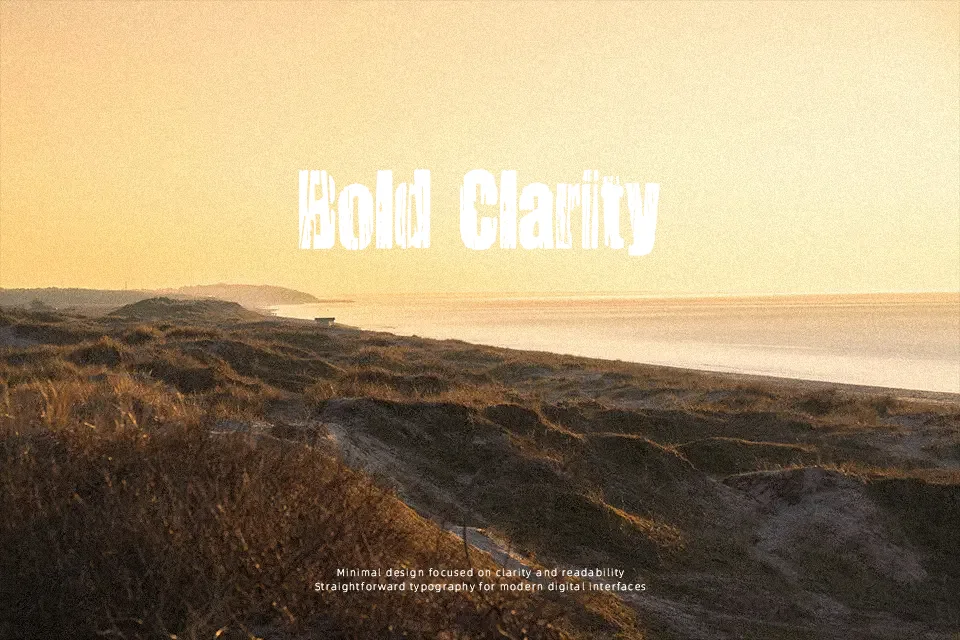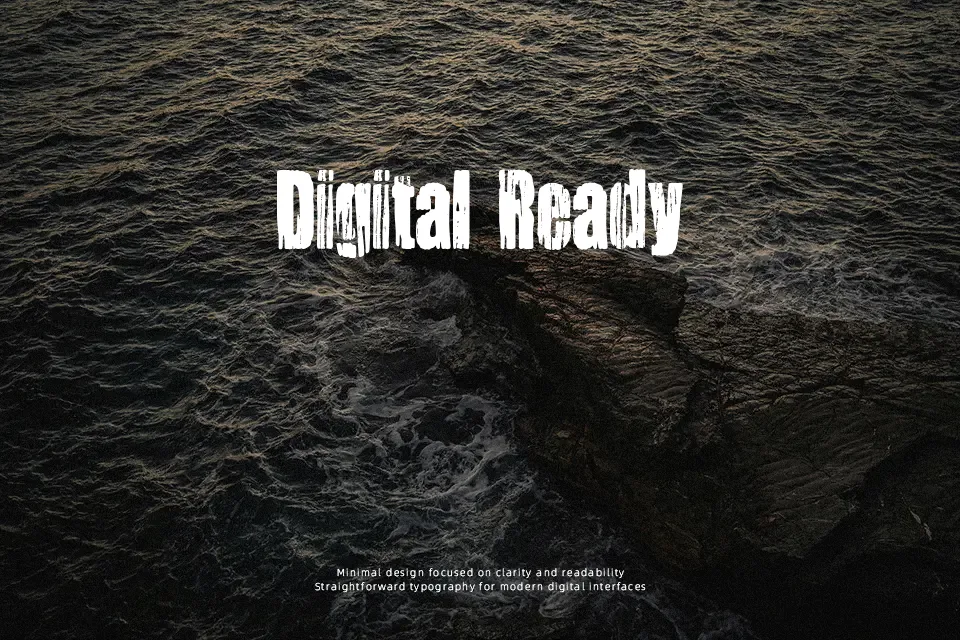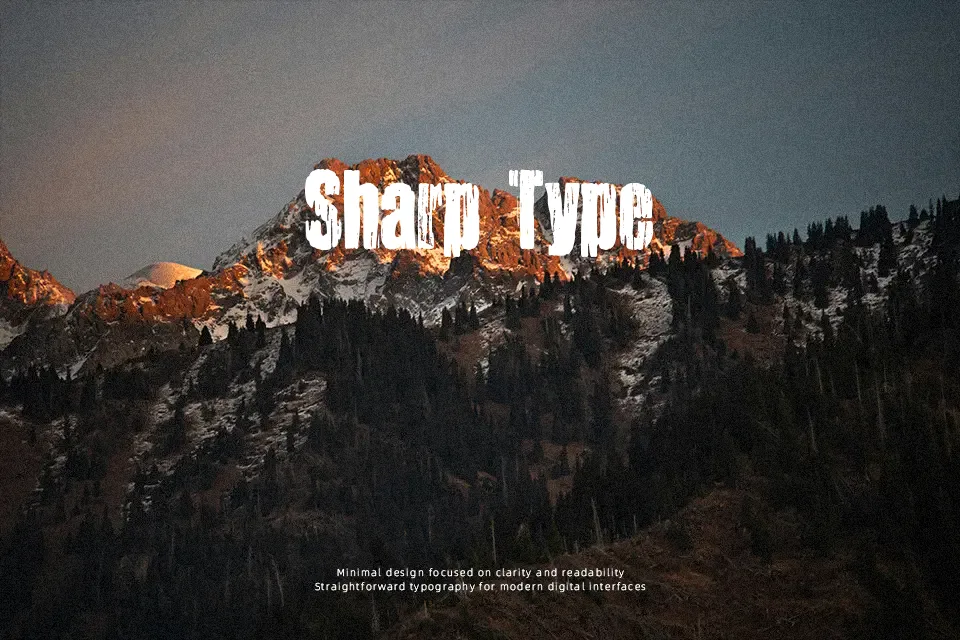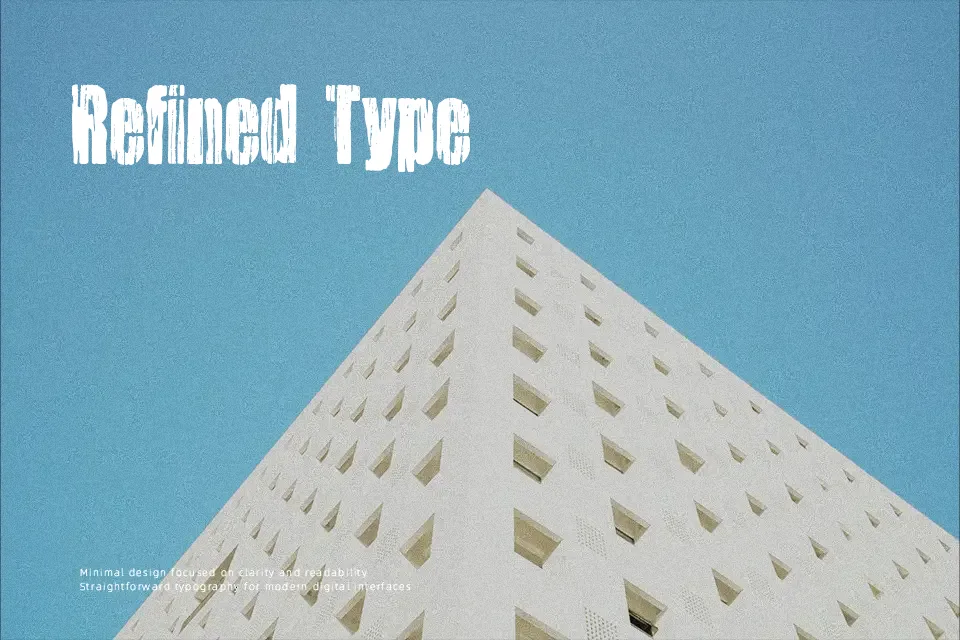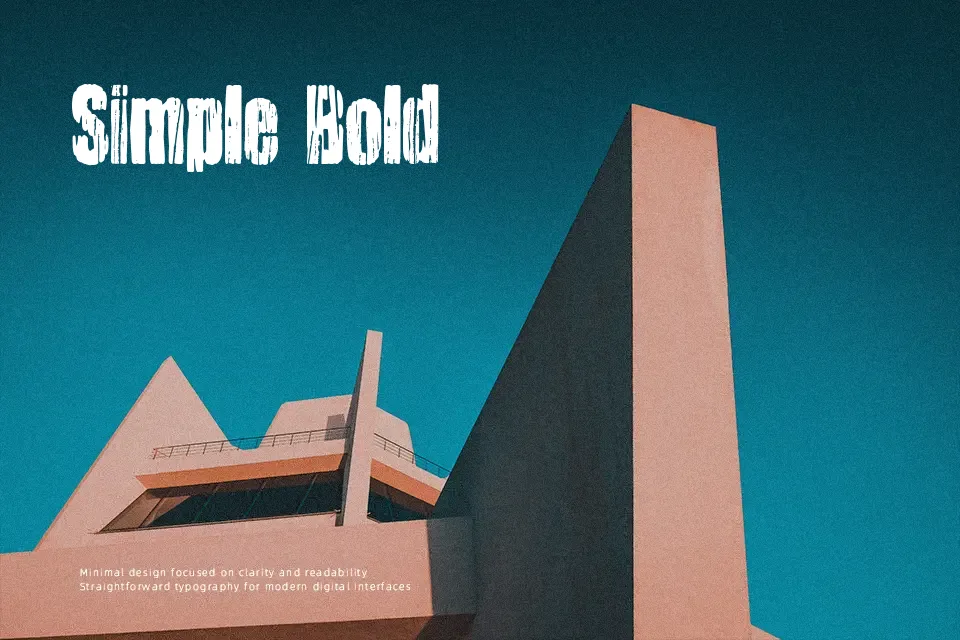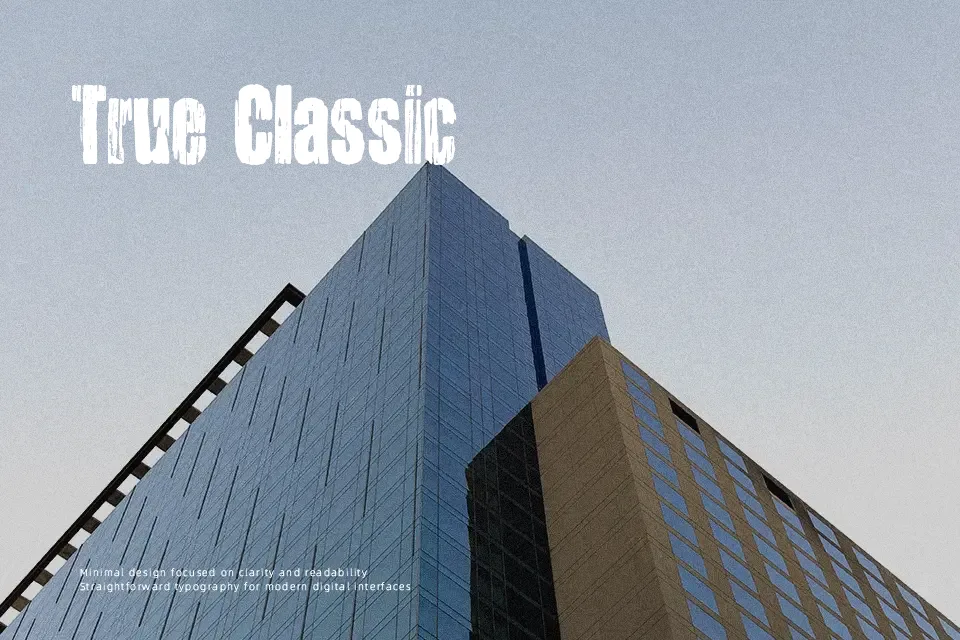
Niño Prodigio Font
Niño Prodigio Font uses disrupted, textured letterforms that create an intentionally worn display appearance. Its strokes vary through broken edges and irregular internal details, while the proportions remain strong enough for short uppercase-led compositions. Spacing appears most effective when the type is given room to stand apart in a headline or title. The font can add tension to event graphics, album covers, and expressive poster work without needing additional decoration. Its distressed surface is the main visual feature, so it is less comfortable in small settings or continuous reading. Larger display sizes provide the clearest result.
Perfect for film, headline, and music, with a creative and decorative style.